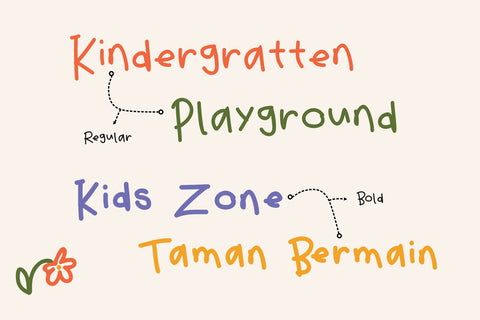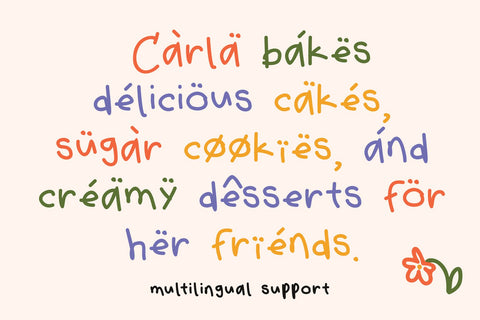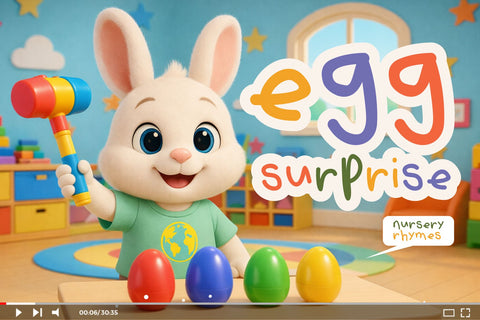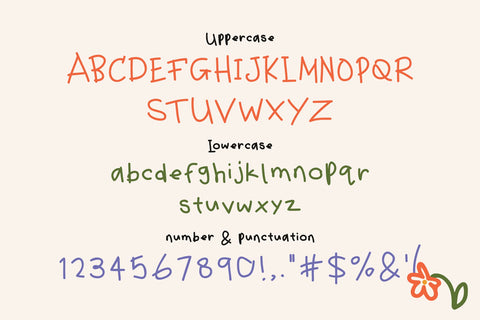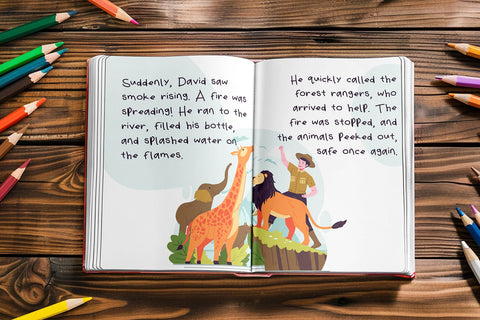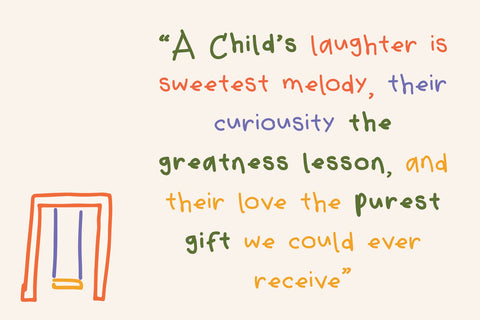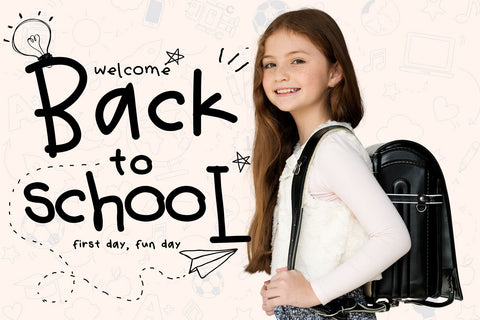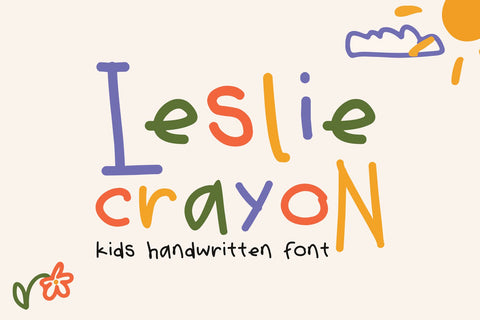
Leslie Crayon – Natural Kids Handwritten Font
Leslie Crayon is a natural kids handwritten font designed to capture the authentic charm of childlike creativity. Inspired by crayon drawings, school doodles, and playful handwriting, this typeface brings a warm, friendly, and organic feel into every design. With its imperfect strokes and natural rhythm, Leslie Crayon creates a genuine handwritten look that feels expressive and full of personality.
This font comes with two styles: Regular and Bold. The Regular style reflects a soft and natural crayon-like handwriting, perfect for light and casual compositions. The Bold style enhances the thickness of each stroke, creating stronger visual impact while maintaining the same playful character. These two styles allow designers to build hierarchy, emphasize key text, and create dynamic layouts without losing consistency.
Leslie Crayon includes uppercase and lowercase characters, giving flexibility for both structured and playful typography. The letterforms are intentionally uneven to mimic real handwriting, adding authenticity and charm to your designs. Despite its organic style, the font maintains readability, making it suitable for both titles and short text content.
The font also includes numbers and punctuation that match the overall crayon aesthetic, ensuring a cohesive design system. With multilingual support, Leslie Crayon can be used across various languages, making it suitable for global creative projects.
This font is ideal for projects that require a friendly and approachable tone. It works beautifully for children’s books, educational materials, school branding, toy packaging, greeting cards, invitations, posters, and creative social media content. Its natural handwritten look makes it especially appealing for designs that aim to feel personal and relatable.
Leslie Crayon is also perfect for branding projects that target family-friendly audiences. It helps create a warm and welcoming identity, making it suitable for daycare centers, kids brands, educational platforms, and creative businesses. The playful style adds emotional value and makes the brand feel more human and engaging.
From a design perspective, Leslie Crayon pairs well with simple sans-serif fonts for balance or with other decorative elements for a more playful composition. Designers can experiment with color, texture, and layering to enhance the crayon effect and create unique visuals.
The font is optimized for both print and digital use. Its clean vector structure ensures high-quality output across different sizes and formats. Whether used in large posters or small labels, it maintains its clarity and charm.
Leslie Crayon is more than just a font—it is a creative expression of childhood imagination. It brings a sense of fun, warmth, and authenticity into design, making it a valuable tool for designers who want to create engaging and emotionally appealing visuals.